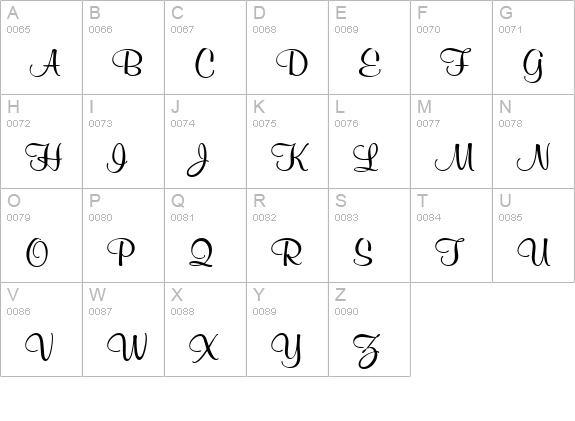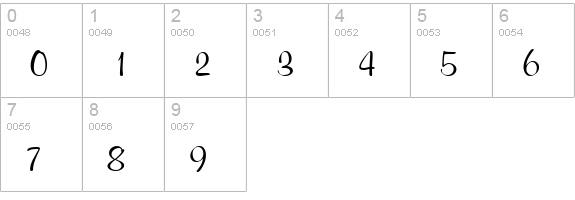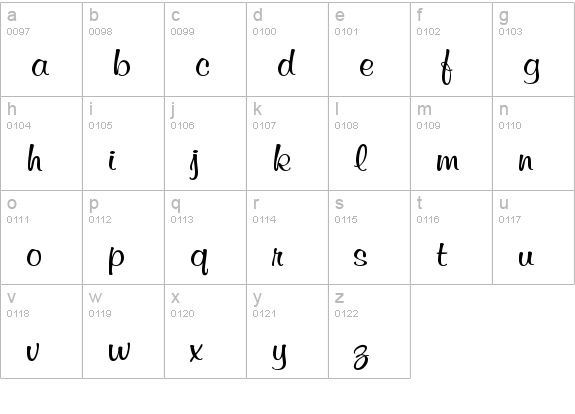
MurphyScriptViva Regular is the standard, neutral variant in the MurphyScriptViva typeface family \xE2\x80\x94 well suited to general body text, paragraphs, and standard typographic work.
MurphyScriptViva Regular font is a beautifully crafted typeface that exudes elegance and sophistication. With its delicate strokes and graceful curves, this font is perfect for adding a touch of charm to your designs. Whether you're working on invitations, greeting cards, or branding materials, MurphyScriptViva Regular is sure to make a lasting impression. The best part? MurphyScriptViva Regular font is available for free download at FontsMarket.com. You can easily access this stunning font and enhance your projects with its timeless appeal. Don't miss out on the opportunity to add a touch of class to your designs with MurphyScriptViva Regular font, now freely available for all your creative needs.